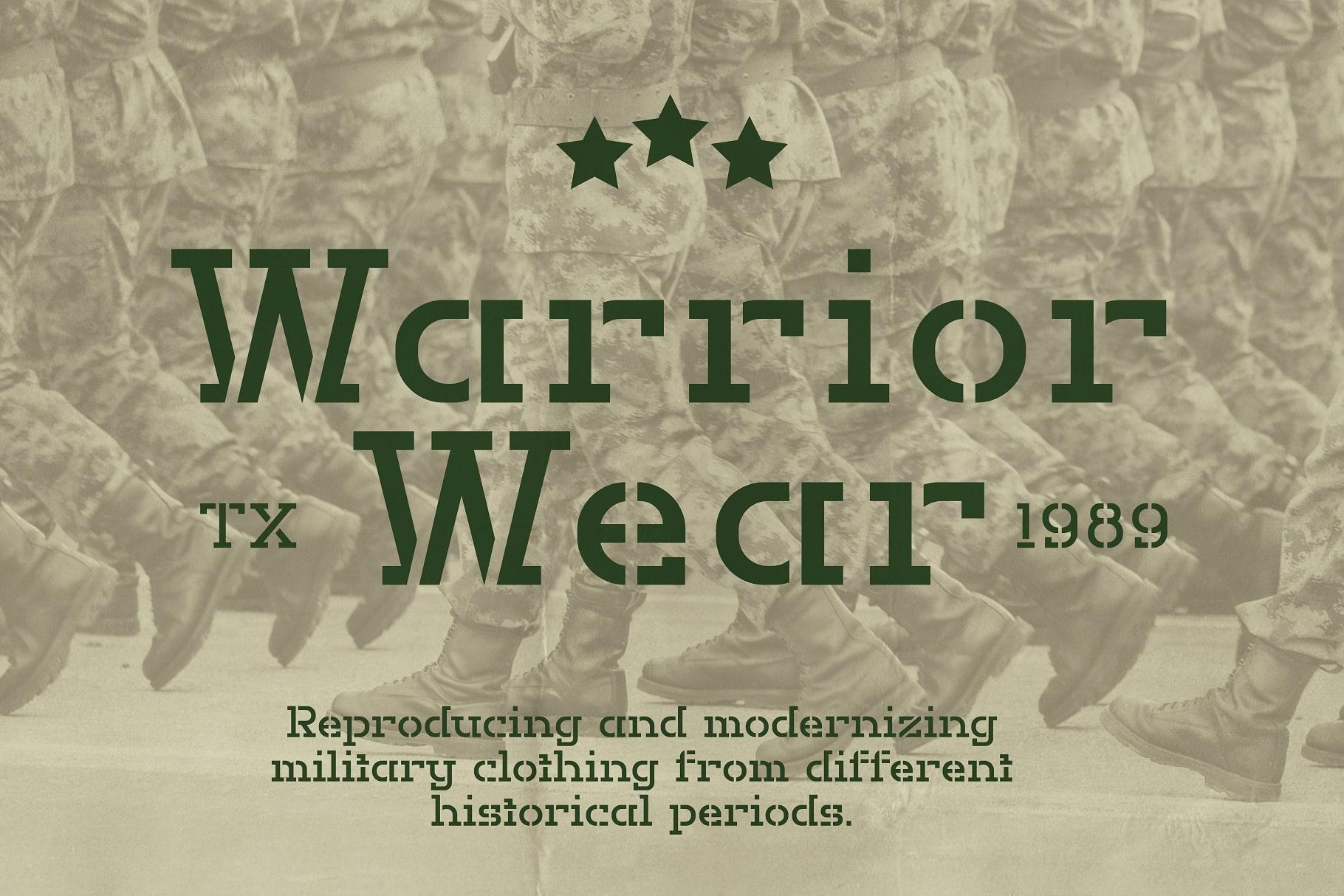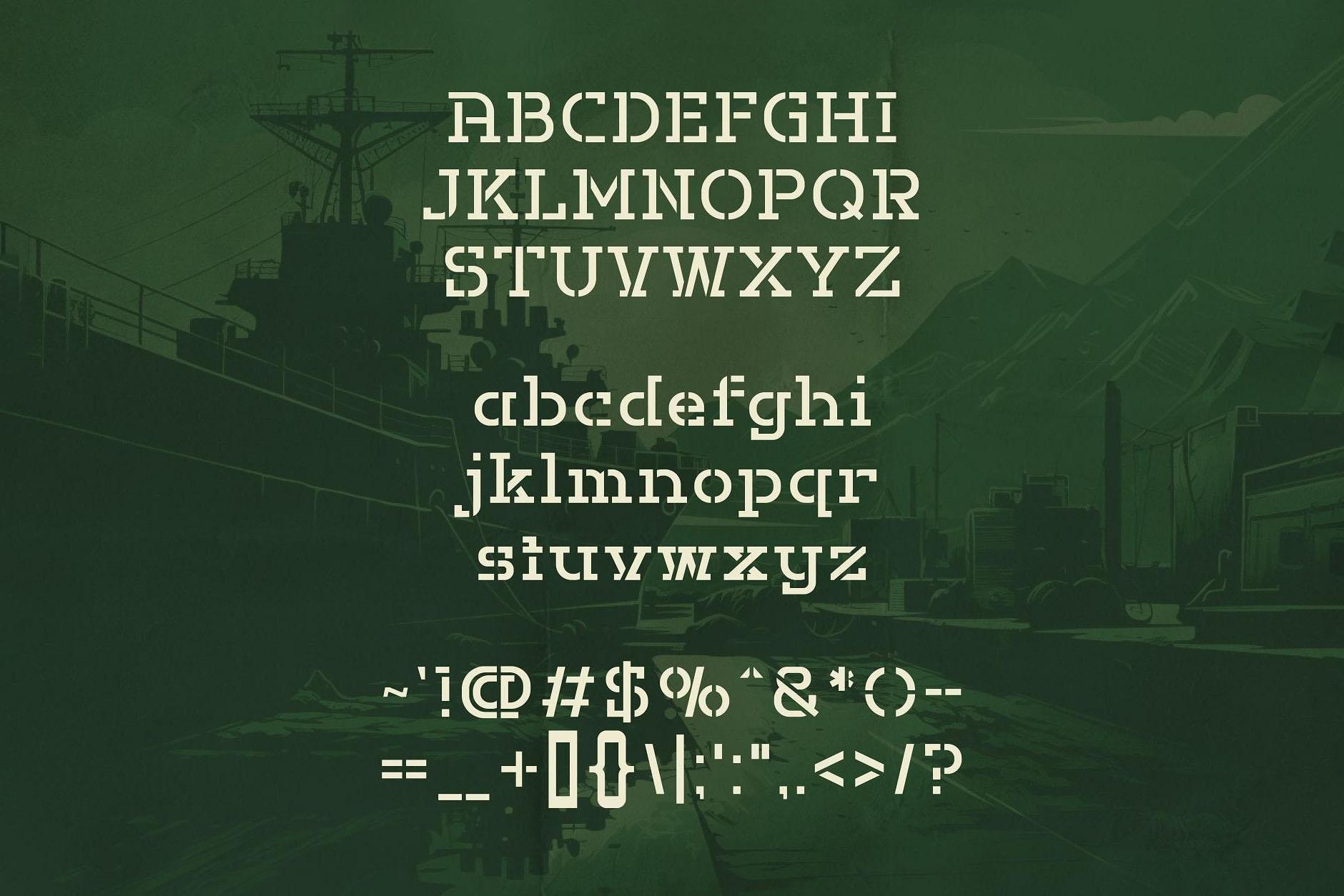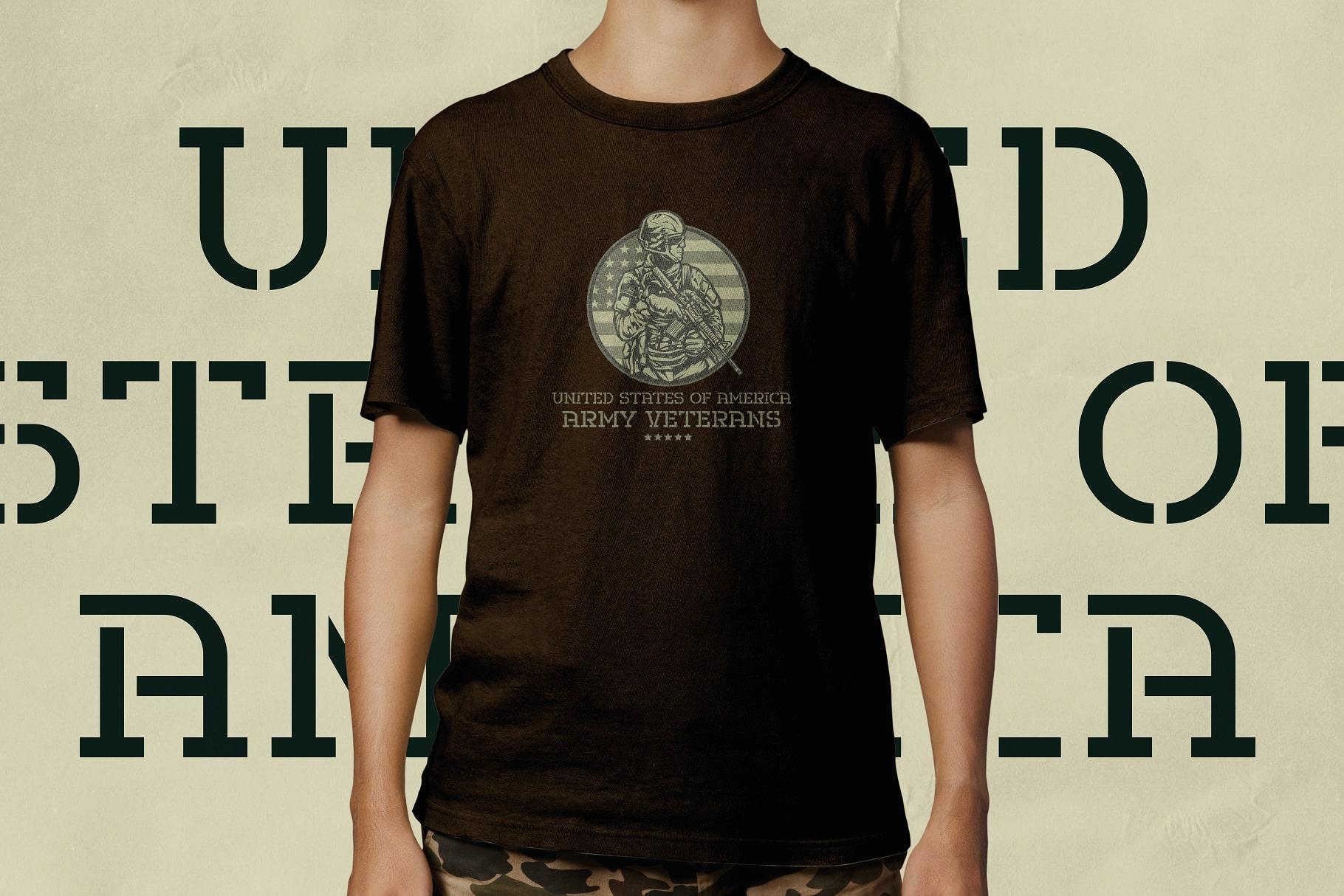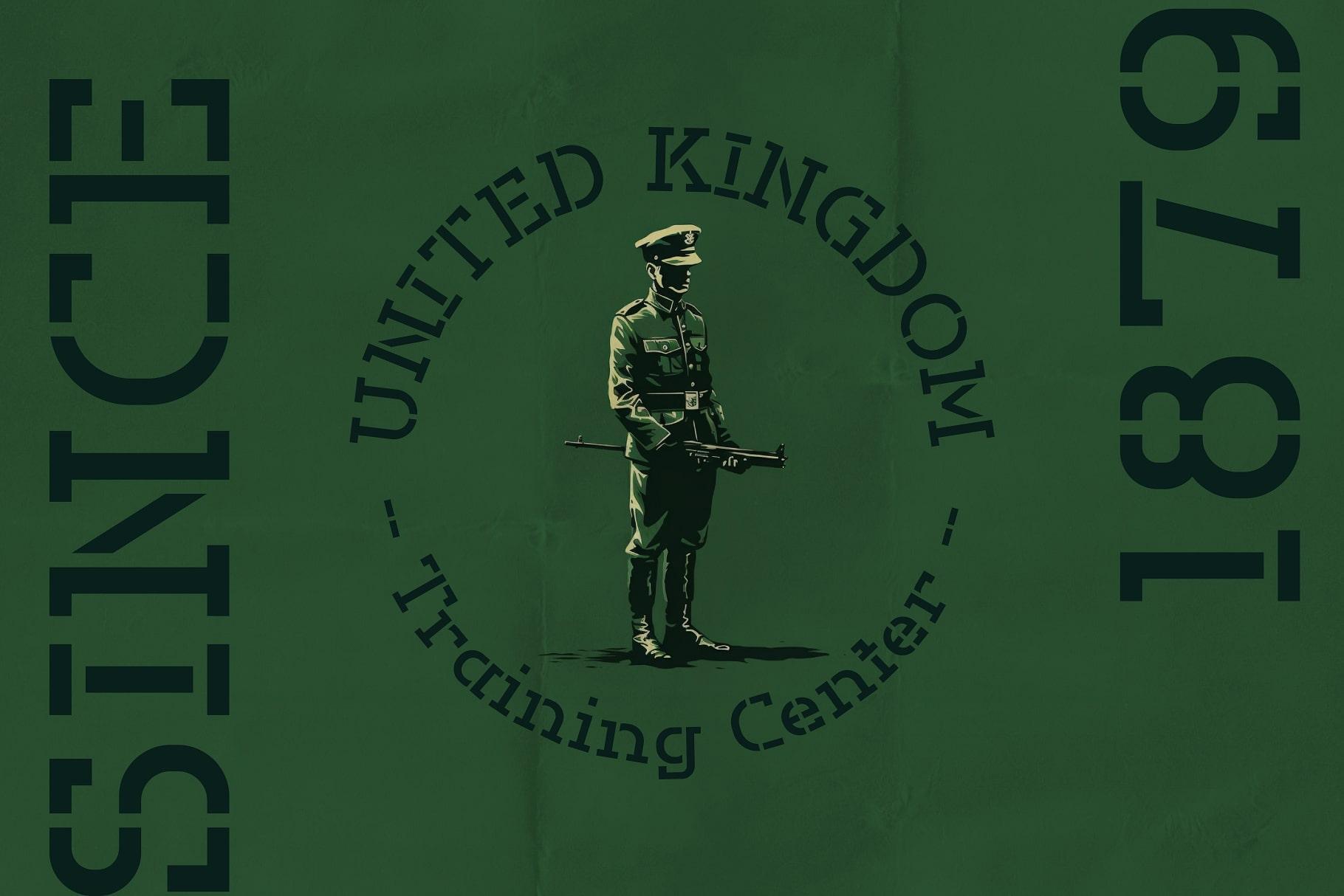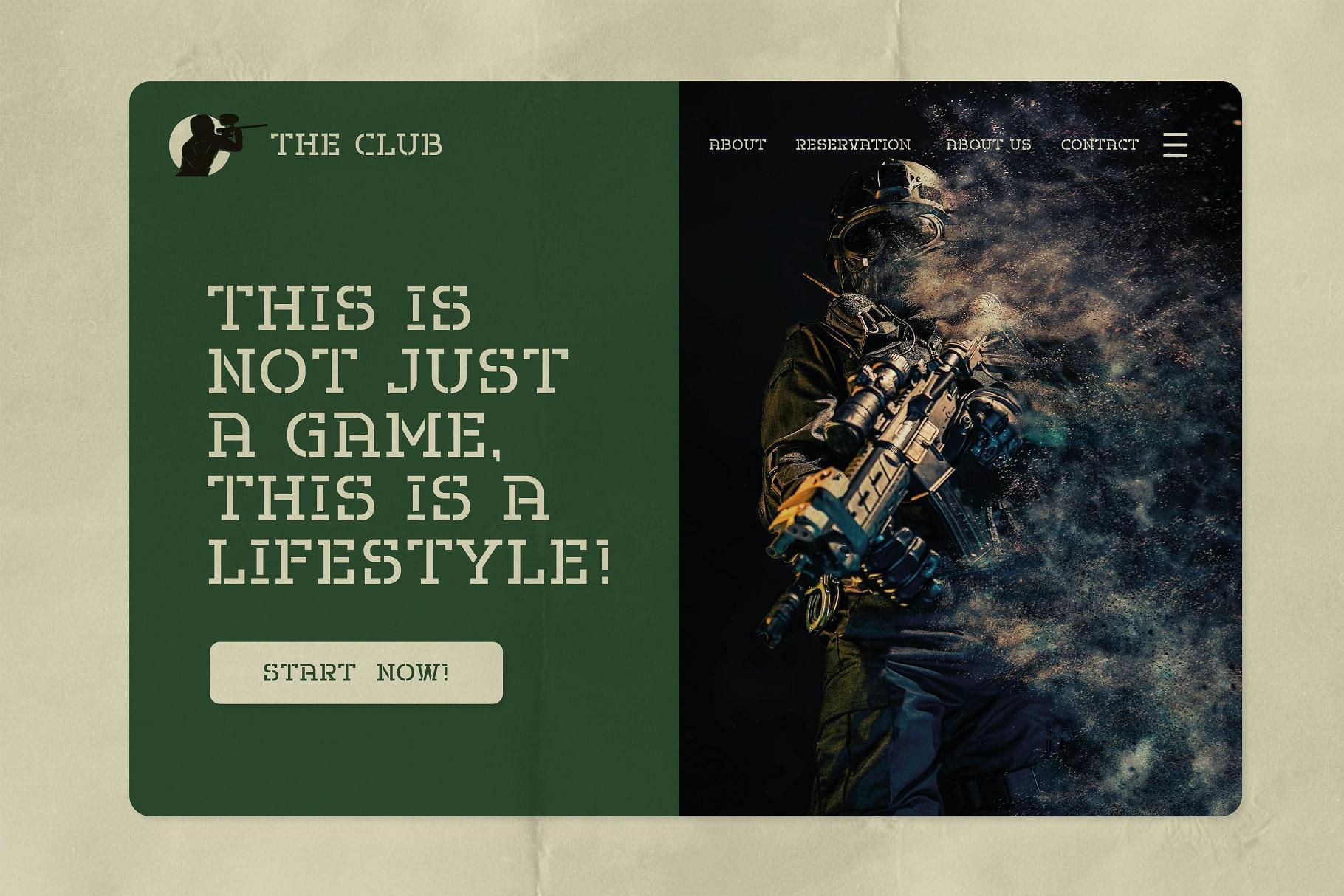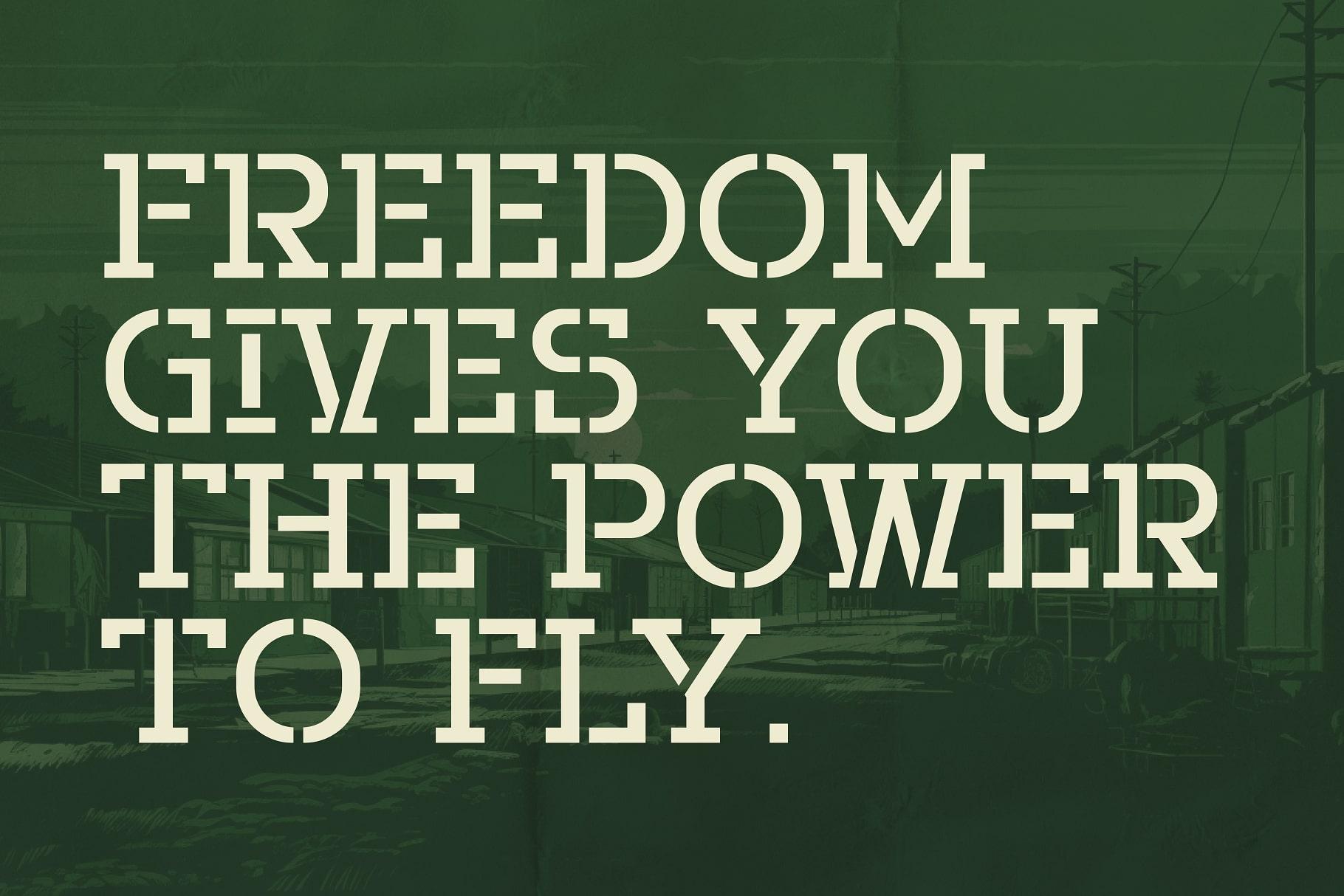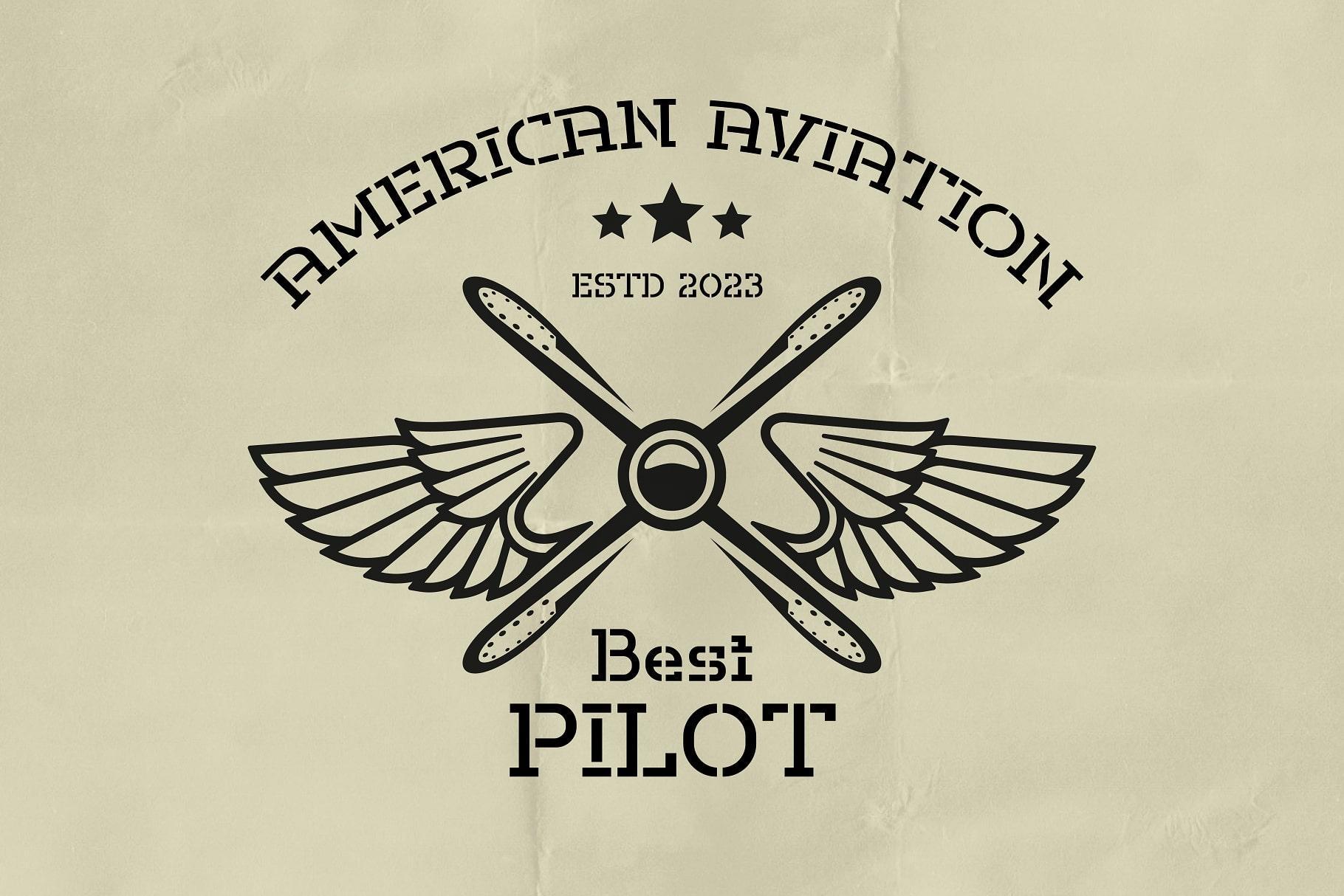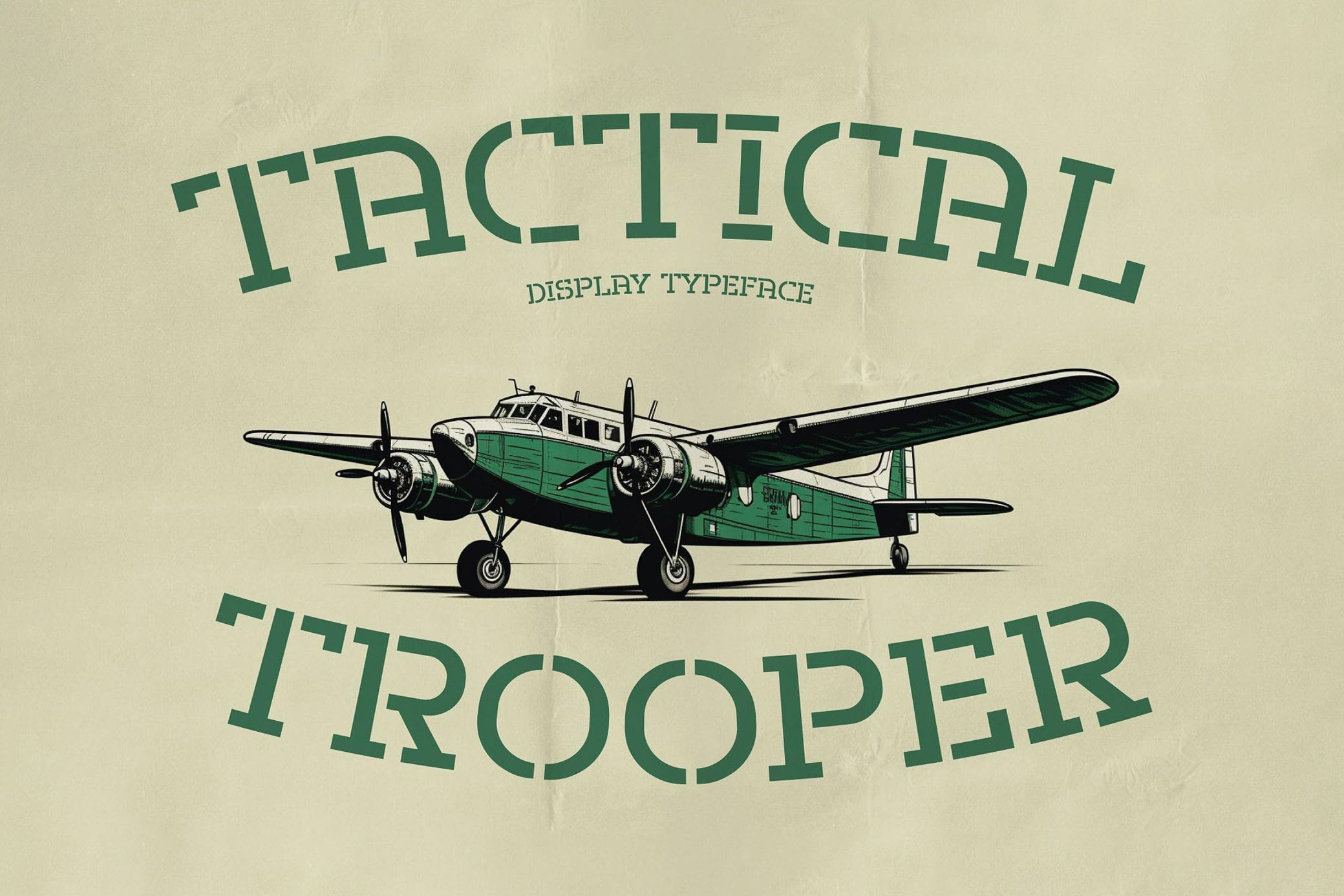
Tactical Trooper - Stencil Font
Tactical Trooper
Introducing Tactical Trooper , a font that brings military precision and modern style together in perfect harmony. This stencil typeface is not your typical rough and rugged military font; it's clean, sharp, and exceptionally easy to read.
Tactical Trooper boasts an air of discipline and order, making it the ideal choice for projects that demand clarity and authority. Whether you're designing for a tactical gear brand, creating posters for an action-packed event, or crafting military-themed graphics, Tactical Trooper stands ready to march into your creative arsenal, ensuring your message comes across with unwavering precision and undeniable impact.